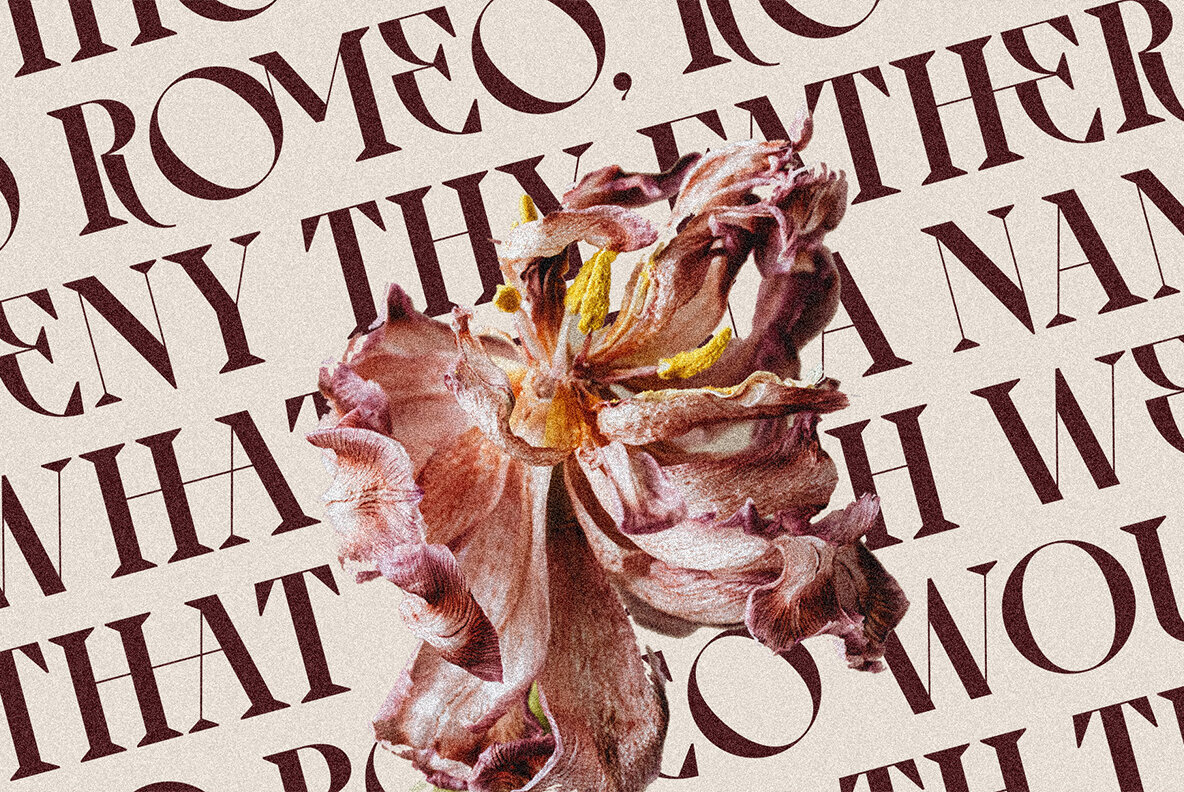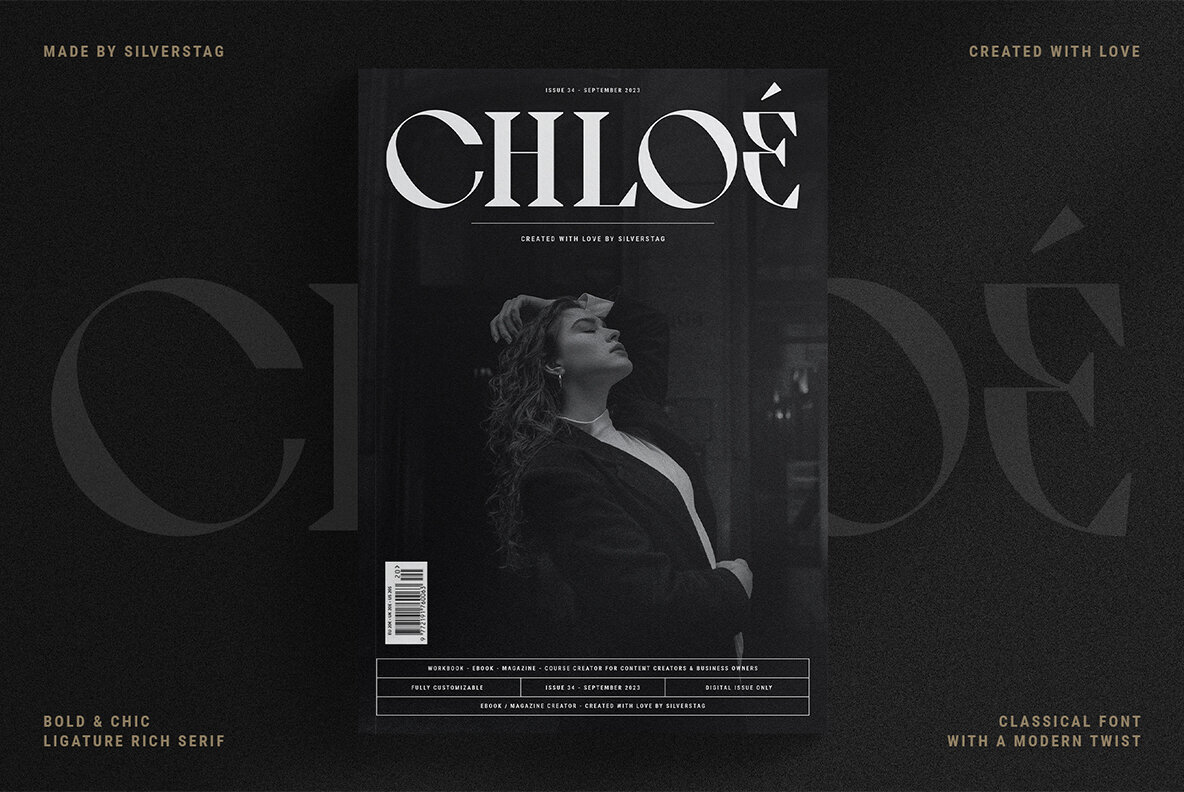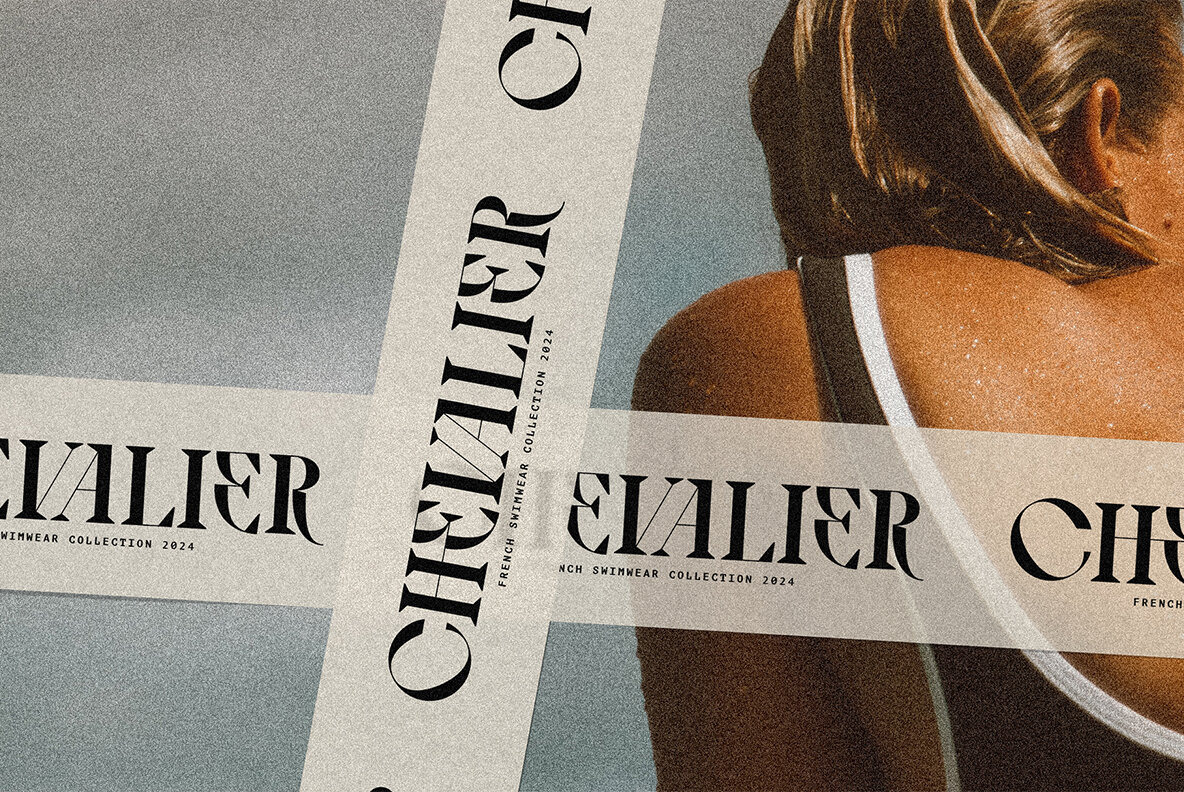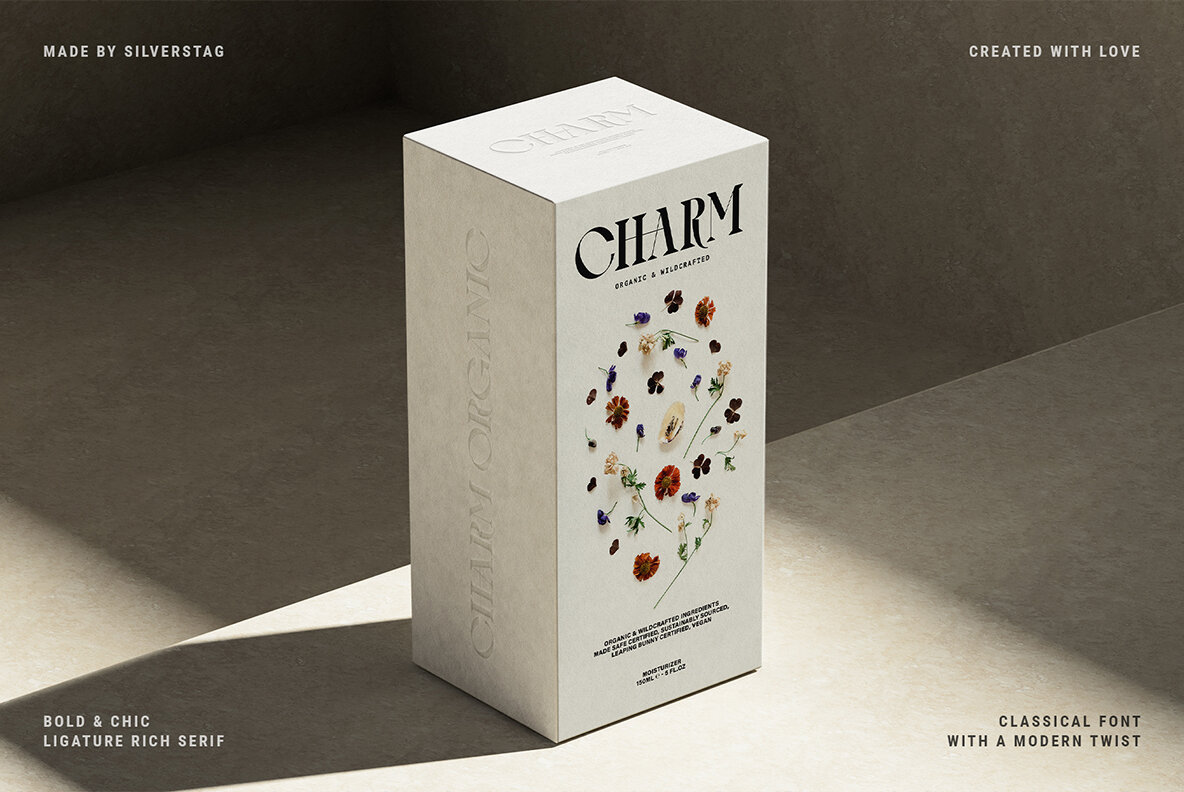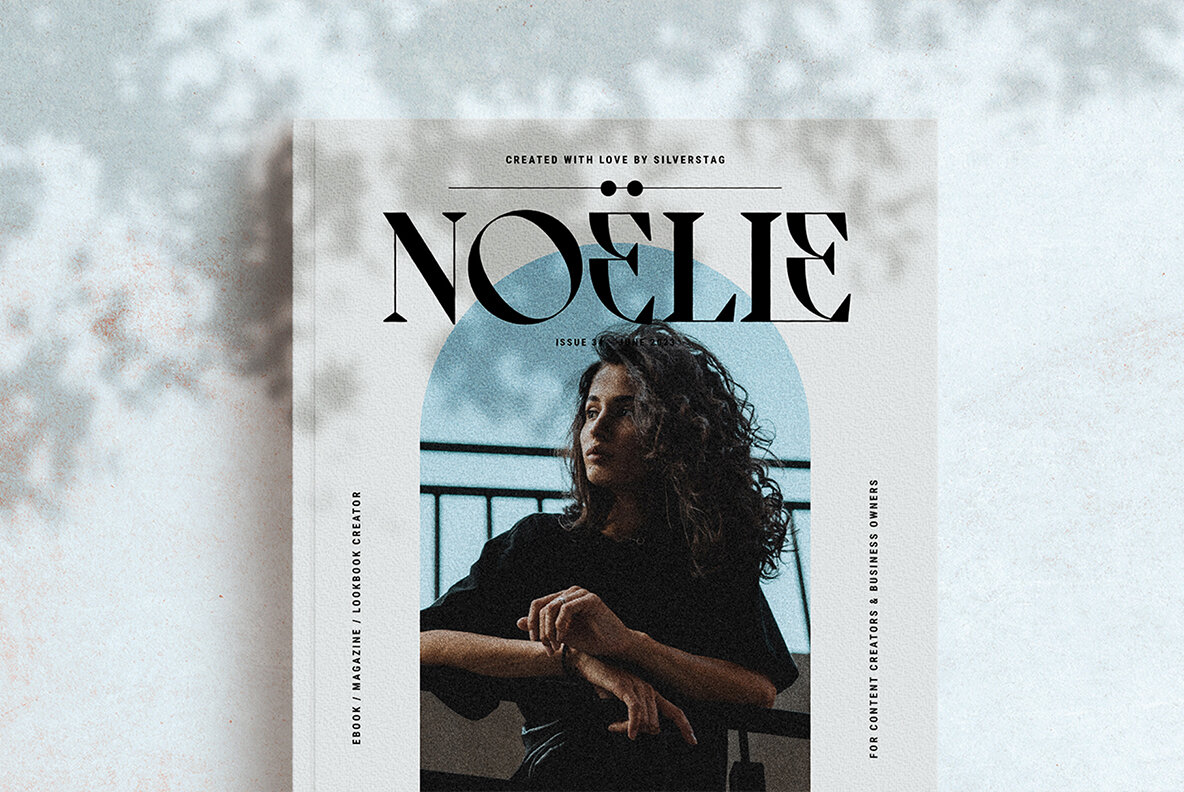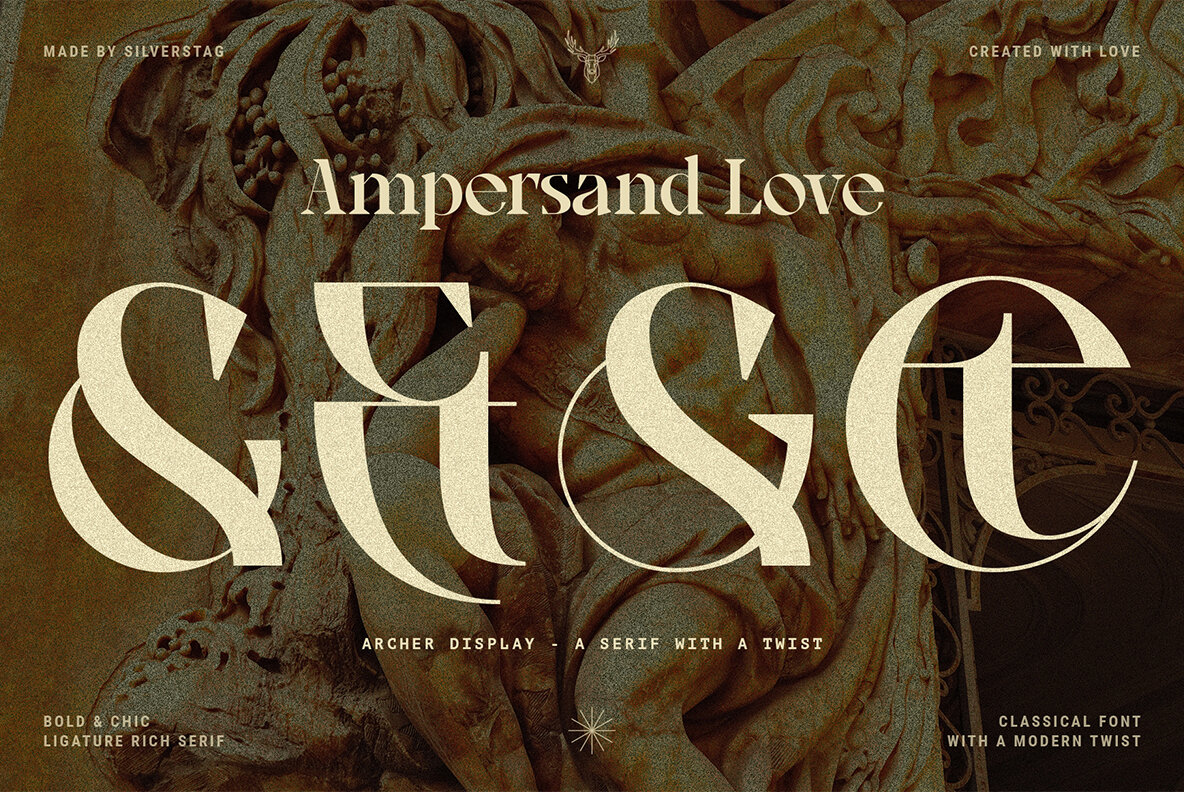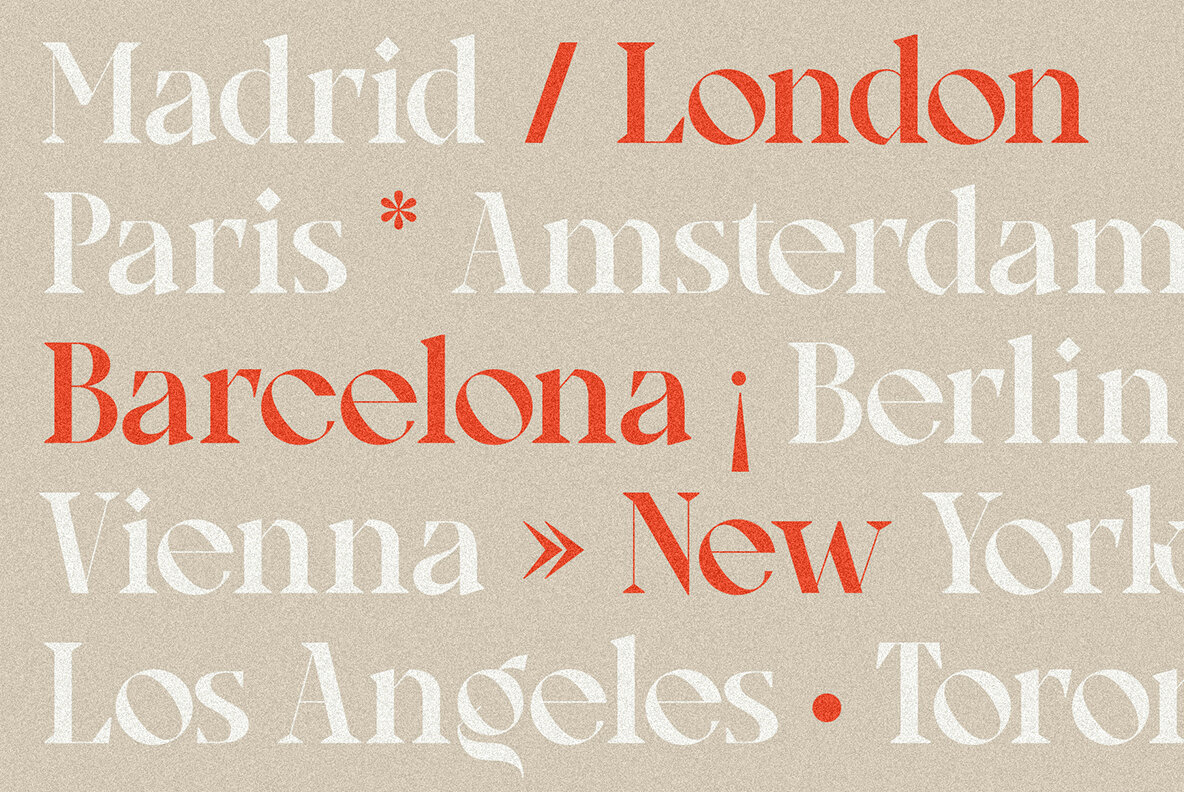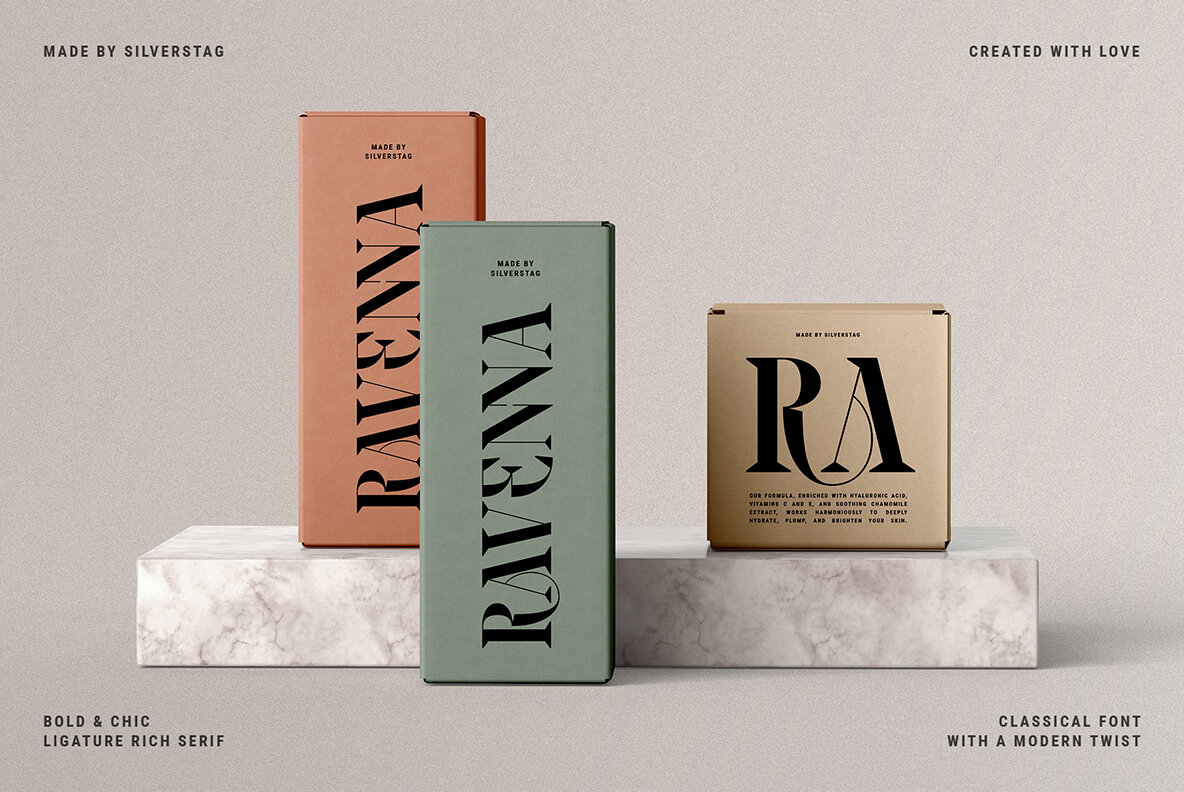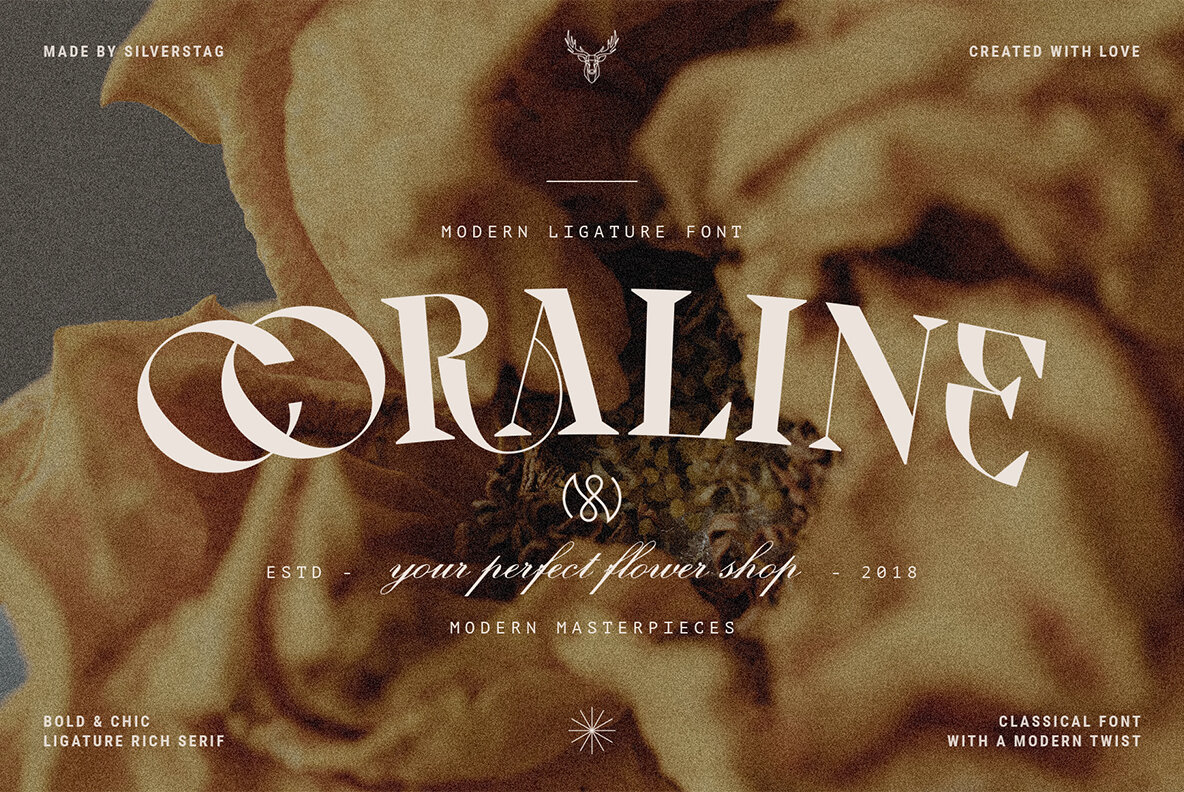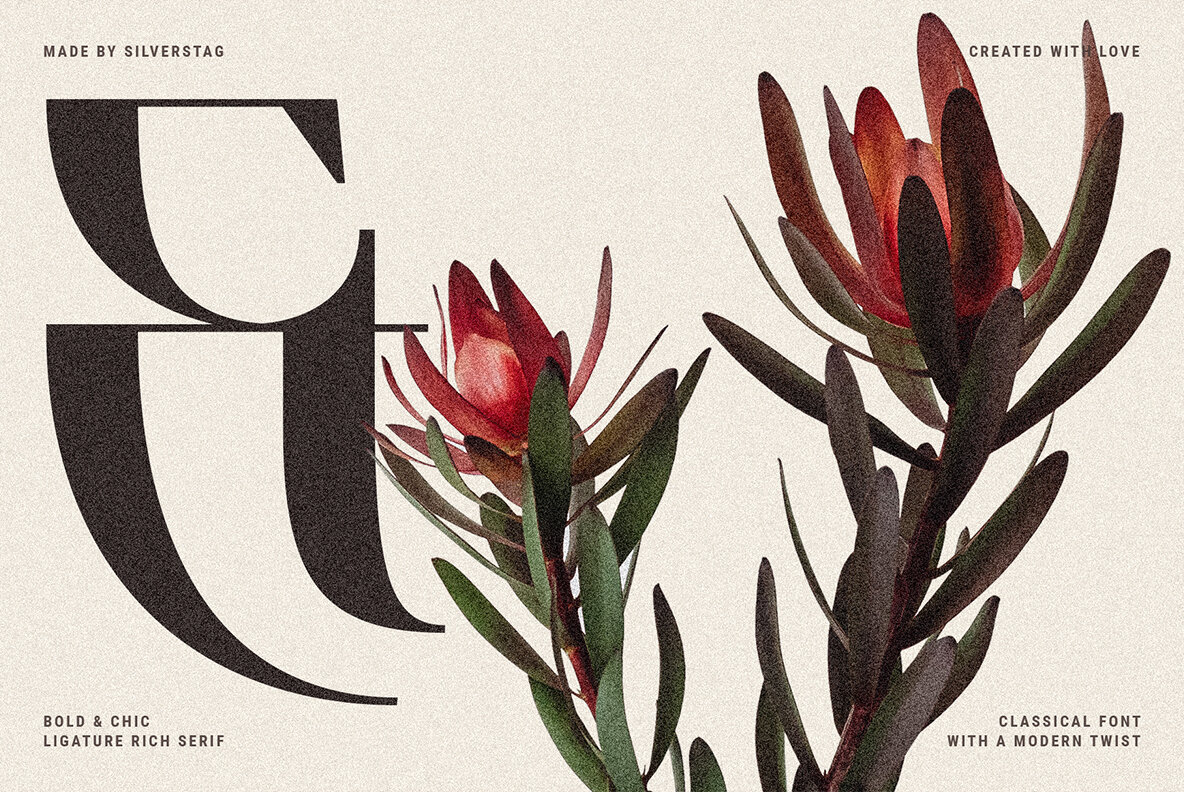
Archer Display Font
Introducing Archer Display – a serif font that bridges the realms of tradition and modernity with effortless finesse. This font carries the weight of a bygone era in its high-contrast design and substantial serifs, but it also boasts a captivating contemporary edge with select letters that have been thoughtfully reimagined for a touch of avant-garde charm. Archer Display isn't just a font; it's a toolkit for your creativity. With over 70 meticulously crafted ligatures and alternate letters, including four distinct ampersands, it empowers you to experiment and craft your unique narrative. But that's not all – this font is a true polyglot, offering full language support for over 90 languages. It transcends linguistic boundaries, allowing your message to resonate globally. Whether you're seeking to evoke a sense of timeless elegance or infuse a project with a modern twist, Archer Display is your ally. It's a font that harmonizes the echoes of yesteryears with the pulse of the contemporary design world. So, embrace the rich tapestry of design possibilities that Archer Display offers and embark on a journey where the past and future gracefully converge. If you end up publishing your designs on Instagram, tag me - @silverstagco and I will make sure to showcase your design and work to my audience as well! Would you like to get 5 completely free fonts worth over $75? No tricks, no hidden words, terms or anything. Just subscribe to my newsletter, make sure to check your email to approve the subscription, add me to your contacts so that the emails don't end up in spam folder and you will get 5 fonts for free. The fonts are packed with alternates, ligatures and some even come with extra goodies.